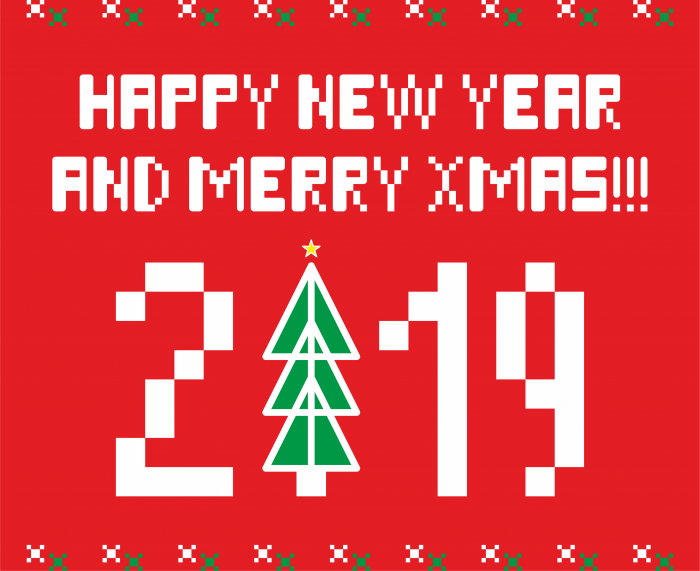
• An experimental font "antipode". The opposition lies in the fact that in one font there are rounded strokes and pixels. Some letters and characters are completely rounded, some are pixelated, and some have both rounded and pixel elements
52 characters for the basic Latin set, 10 numerals, 36 punctuation characters, 66 characters for the Russian language set
An experimental font "antipode". The opposition lies in the fact that in one font there are rounded strokes and pixels. Some letters and characters are completely rounded, some are pixelated, and some have both rounded and pixel elements
52 characters for the basic Latin set, 10 numerals, 36 punctuation characters, 66 characters for the Russian language set
Don't even know what to say, but V, W, X, Y, Z stick out of the rest letters. The idea is nice, but I'm still more into "traditional" pixel fonts.
antipodeby maria dolgich